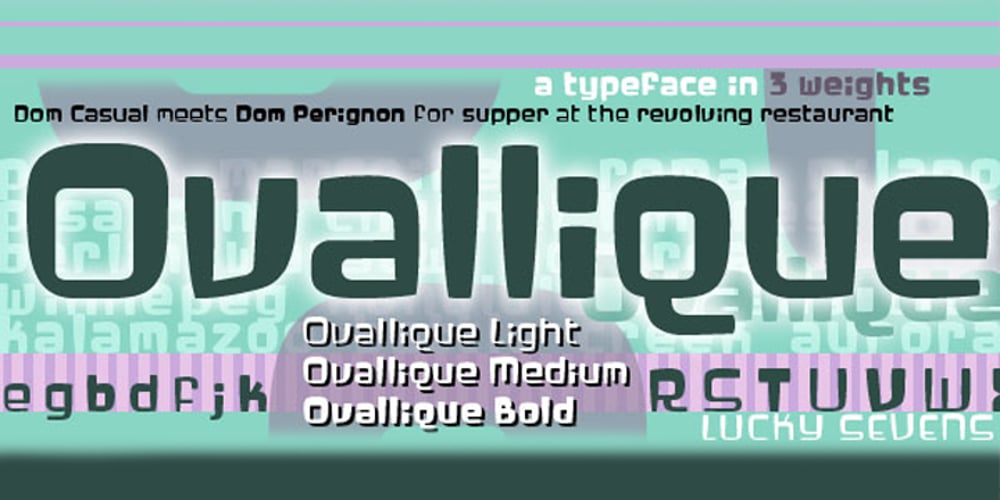
Ovallique
Ovallique font
Ovallique Font Family was designed by Joe VanDerBos and published by Vanderfont. Ovallique contains 4 styles and family package options. Ovallique shares roots with its looser cousin Beachbuoy. But don’t mistake Ovallique’s casual parentage for hand me down genes. Ovallique is the well-tailored relation, with limousine and driver at the ready. Dom Casual meets Dom Perignon for supper at the revolving restaurant. OK, so the wallpaper is slightly faded. Ovallique’s x-height makes it legible even after apĆ©ritifs. It’s kitschy slumming for the streamlined set!